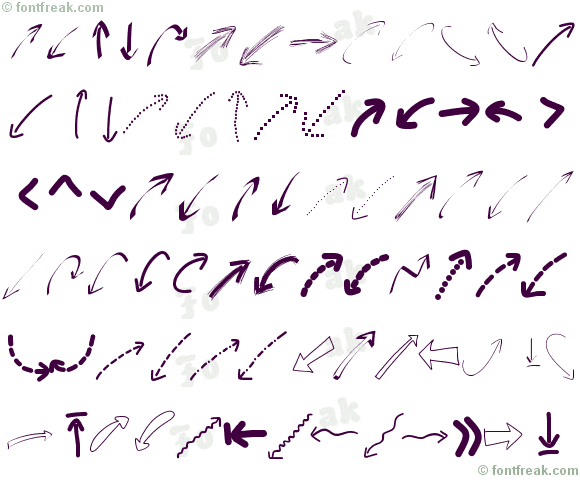
PeaxWebdesignarrows
PeaxWebdesignarrows is a unique collection of decorative dingbats designed by Peax Webdesign, perfect for adding a creative touch to various digital and print projects. As a freeware font, it stands out for its accessibility, making it an excellent choice for graphic designers, small business owners, and content creators looking to enhance their visual communication.
This font features a series of stylized arrows, each exhibiting a dynamic and playful aesthetic. The strokes are varied in weight, providing an interesting visual contrast that draws the eye. The spacing between the arrows is well-considered, allowing for seamless integration into designs without overwhelming the surrounding elements. Each arrow has its own character, featuring decorative twists and turns that make them distinct while still maintaining a cohesive look.
PeaxWebdesignarrows is particularly versatile for a range of creative applications. It is ideal for web design, where arrows can guide users' attention or direct navigation. The font is also suitable for infographics, helping to illustrate data points and trends in a visually engaging manner. Additionally, these arrows can be effectively used in marketing materials, such as flyers and social media graphics, to add an element of fun and creativity. Event planners might find them useful for invitations, giving a modern edge to traditional designs.
In summary, PeaxWebdesignarrows stands out due to its innovative design and versatility, making it an excellent addition to any designer's toolkit. Its distinct style and playful nature can elevate projects, ensuring they capture attention and convey messages effectively.